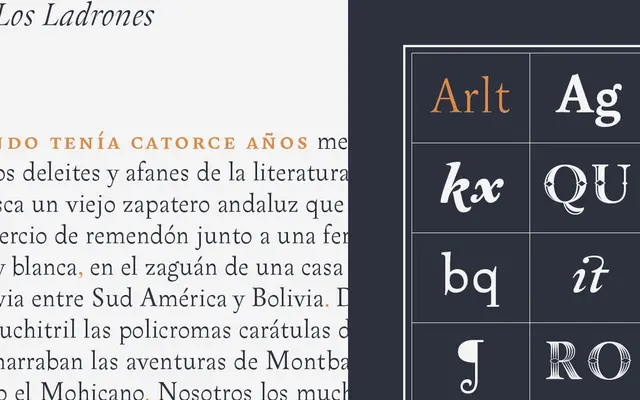
Arlt
Pampatype · Alejandro Lo Celso · 2008
A text serif by Alejandro Lo Celso named after the Argentinian writer Roberto Arlt, drawing on Baroque and Mannerist models to produce capricious, rhythmically compelling roman and italic styles suited to literary typesetting.
Designed in four weights with matching italics, Arlt builds its character through whimsical details and vigorous counterforms that trace a lineage back to 17th and 18th century Baroque and Mannerist typography. Both roman and italic cuts carry an impulsive energy that settles into a harmonious, comfortable reading texture across long literary texts. The family was a Typographica Favourite of 2008 and received an honourable mention at the Creative Review awards in London in 2005.
Pampatype classifies Arlt as a serif with old-style character; its vigorous counterforms and whimsical details explicitly link to Baroque and Mannerist typography of the 17th and 18th centuries, placing it firmly in the old-style tradition.